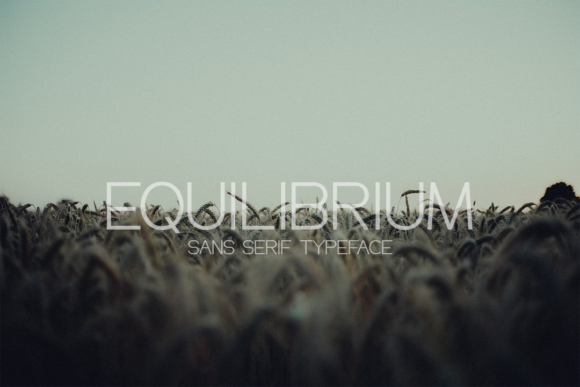
Equilibrium Font
Equilibrium Font: Simplicity and Sophistication United
Embark on a typographic journey with Equilibrium Font, a masterpiece that blends simplicity and elegance effortlessly. This sans serif font is the epitome of understated charm, boasting a clean design that exudes sophistication. Each letter is meticulously crafted to embody balance and harmony, resulting in a typeface that is both visually appealing and highly readable.
Whether you're crafting formal documents, designing eye-catching logos, or creating stunning social media graphics, Equilibrium Font is the perfect choice to elevate your designs with a touch of understated elegance. Its versatility extends to both digital and print mediums, making it an indispensable tool for any creative project.
Indulge in Equilibrium Font's pristine aesthetic and experience the joy of creating designs that are both aesthetically pleasing and effortlessly chic. Let the clean lines and beautiful letterforms guide your imagination and unlock a world of typographic possibilities. Embrace the allure of Equilibrium Font and elevate your creations to new heights.
Created by the talented team at OKSHUTYPECO, Equilibrium Font is a testament to their unwavering commitment to excellence. With its impeccable attention to detail and timeless design, Equilibrium Font is destined to become a staple in your typographic arsenal.